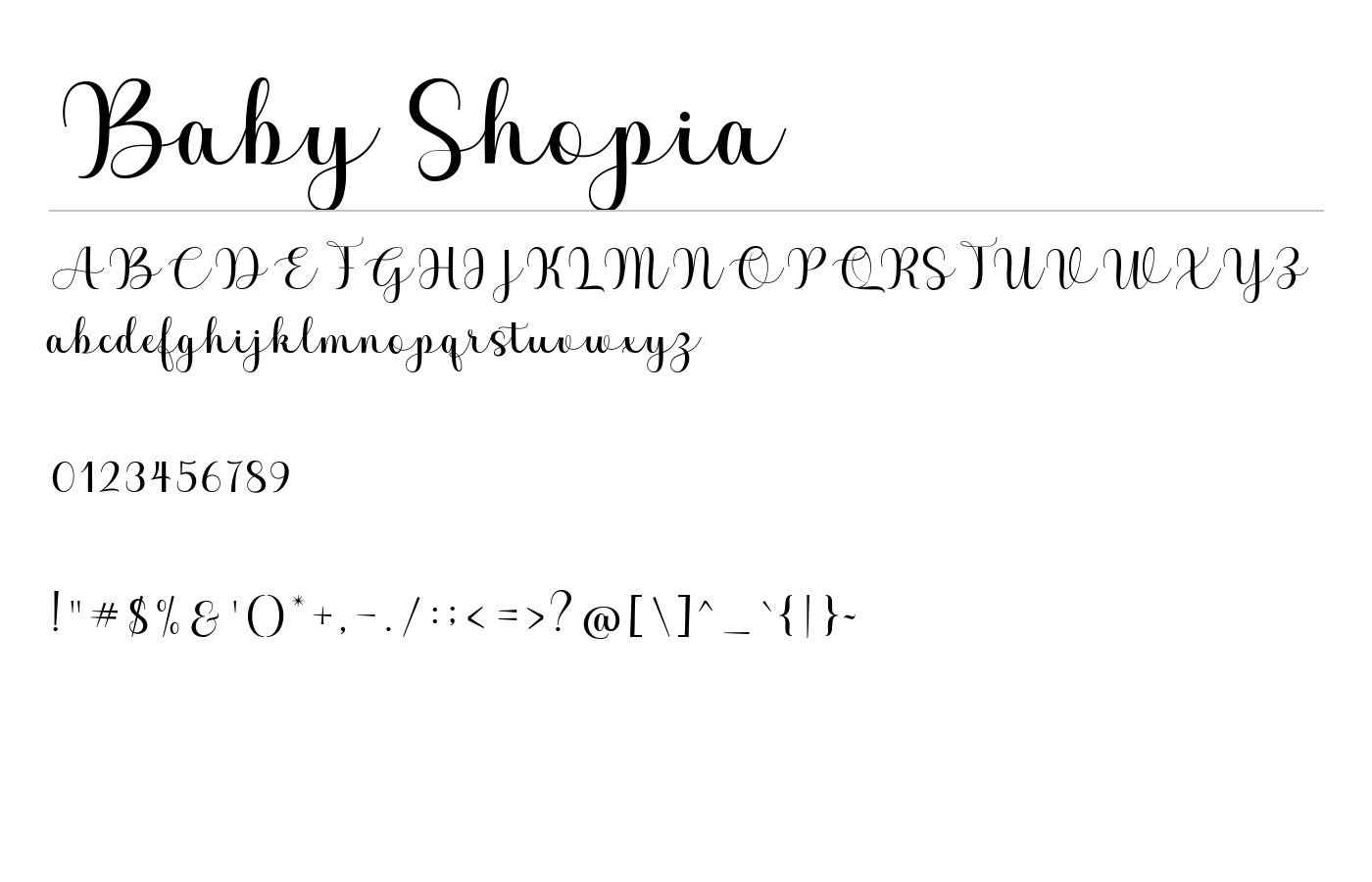
Baby Shopia is a delicate, script-style font that combines elegant thin strokes with playful, flowing loops, creating a charming and whimsical feel. Its high contrast and graceful curves make it ideal for feminine, joyful designs such as baby products, invitations, and branding that requires a soft, welcoming touch. This font works best in headlines and decorative text where its unique personality can truly shine.
Baby Shopia Font
About Baby Shopia Font
| Font family | Baby Shopia Font |
| Designer | Romi Rahmadi |